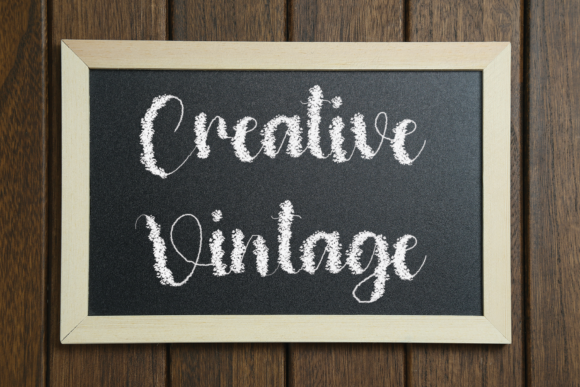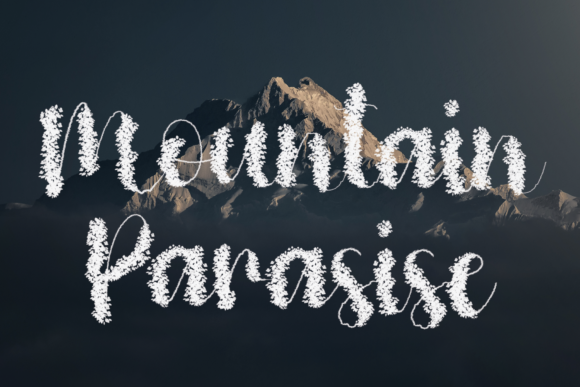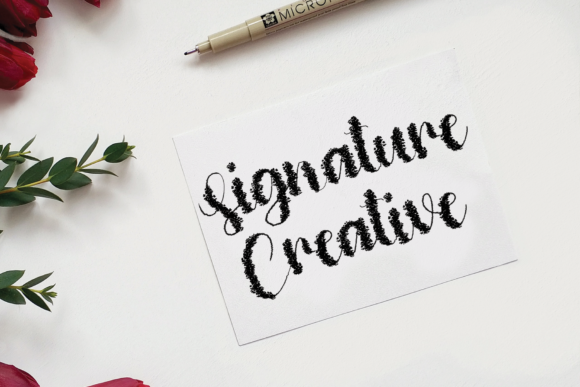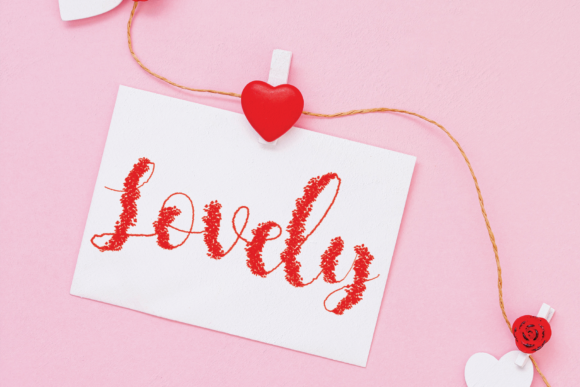
Introducing the Brilliant Signature Font: Elevate Your Designs with Delicate Elegance
Are you on the hunt for a font that adds a touch of sophistication and whimsy to your projects? Look no further than the Brilliant Signature Font. This gorgeous decorative font is designed to bring a level of elegance and refinement to your designs, making it perfect for a wide range of applications.
What Makes Brilliant Signature Font So Special?
The Brilliant Signature Font is a standout in the world of typography, thanks to its unique and eye-catching design. Each character in this beautiful script font is adorned with delicate flowers, adding a touch of femininity and charm. The intricate details and ornate flourishes make this font perfect for projects that require a bit of luxury and glamour.
Whether you’re a designer, crafter, or DIY enthusiast, the Brilliant Signature Font is a versatile addition to your toolkit. This font is suitable for a wide range of projects, including:
- Logos: Create a lasting impression with a custom logo that features the Brilliant Signature Font.
- Branding projects: Add a touch of elegance to your brand’s identity with this beautiful script font.
- Labels: Make your products stand out with custom labels that feature the Brilliant Signature Font.
- Photography: Add a touch of sophistication to your photos with watermarks that feature this gorgeous font.
- Special events: Create beautiful invitations, programs, and other materials for weddings, parties, and other special occasions.
Why Choose the Brilliant Signature Font?
With so many fonts to choose from, why should you opt for the Brilliant Signature Font? Here are just a few reasons why this font stands out:
- Unique and eye-catching design: The delicate flowers on each character make this font truly one-of-a-kind.
- High-quality design: The font is carefully crafted to ensure that it looks beautiful in any size or application.
- Versatile: This font can be used for a wide range of projects, from logos and branding to labels and special events.
Tips for Using the Brilliant Signature Font
To get the most out of the Brilliant Signature Font, here are a few tips to keep in mind:
- Use it sparingly: While the Brilliant Signature Font is beautiful, it can be overwhelming if used too much. Use it as an accent font to add a touch of elegance to your designs.
- Pair it with a simple font: Pair the Brilliant Signature Font with a simple, clean font to create a beautiful contrast.
- Experiment with colors: The Brilliant Signature Font looks beautiful in a variety of colors, so don’t be afraid to experiment and find the perfect hue for your project.
The Brilliant Signature Font is a gorgeous decorative font that adds a touch of elegance and sophistication to any project. With its delicate flowers and intricate details, this font is perfect for designers, crafters, and DIY enthusiasts who want to create beautiful and eye-catching designs. Whether you’re working on a logo, branding project, label, or special event, the Brilliant Signature Font is a versatile and high-quality choice.